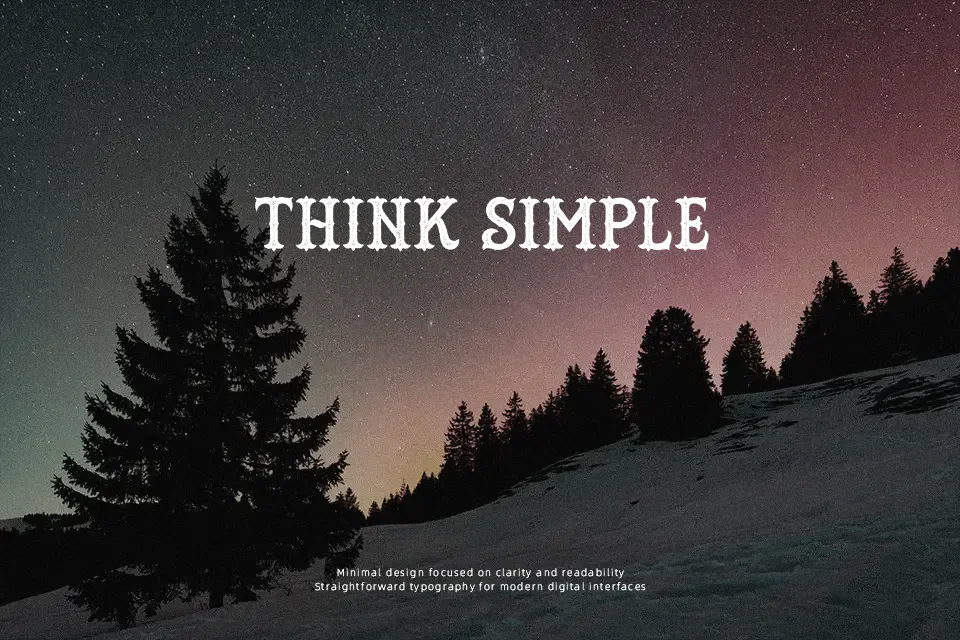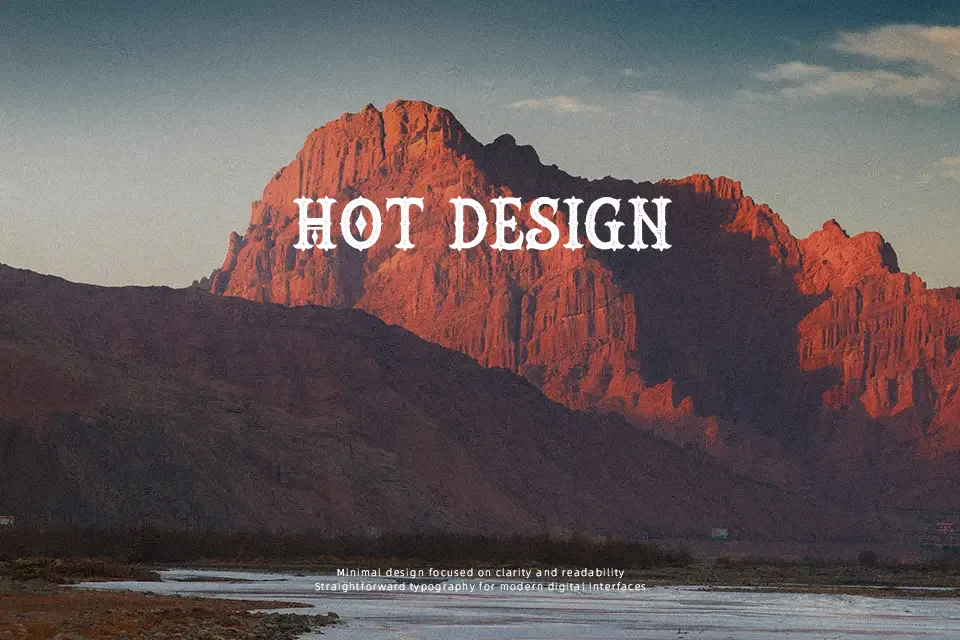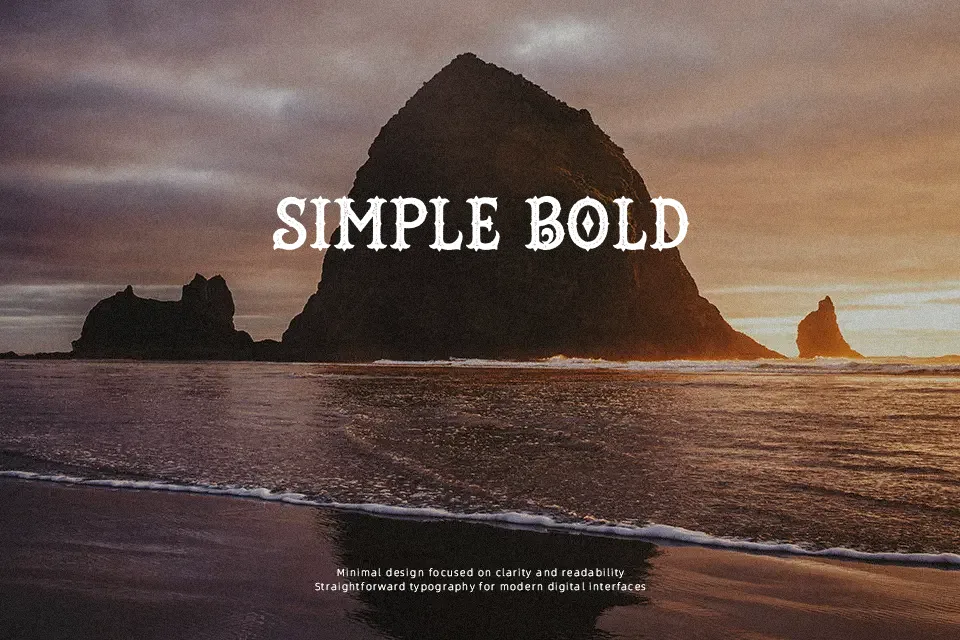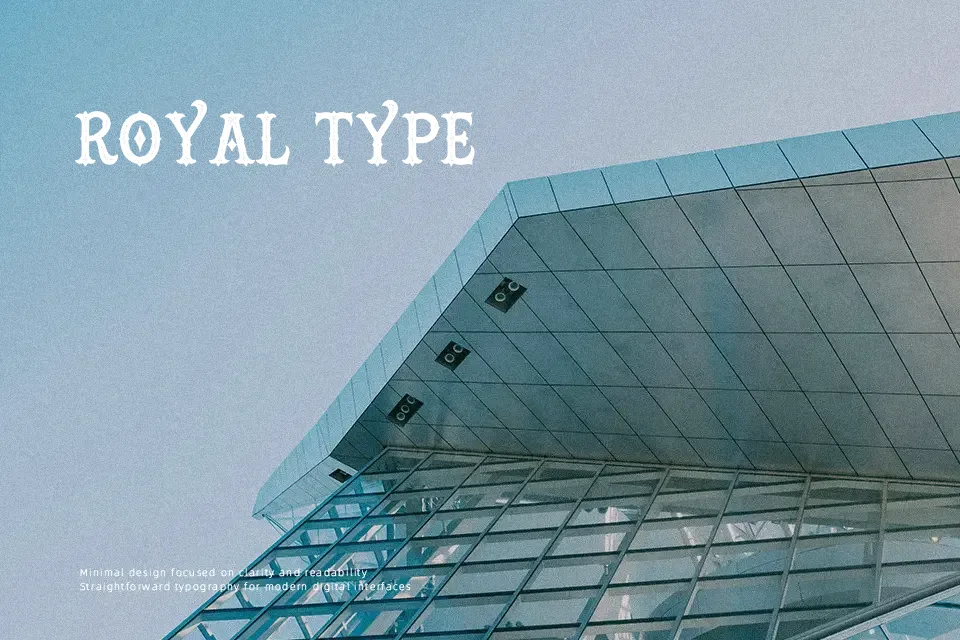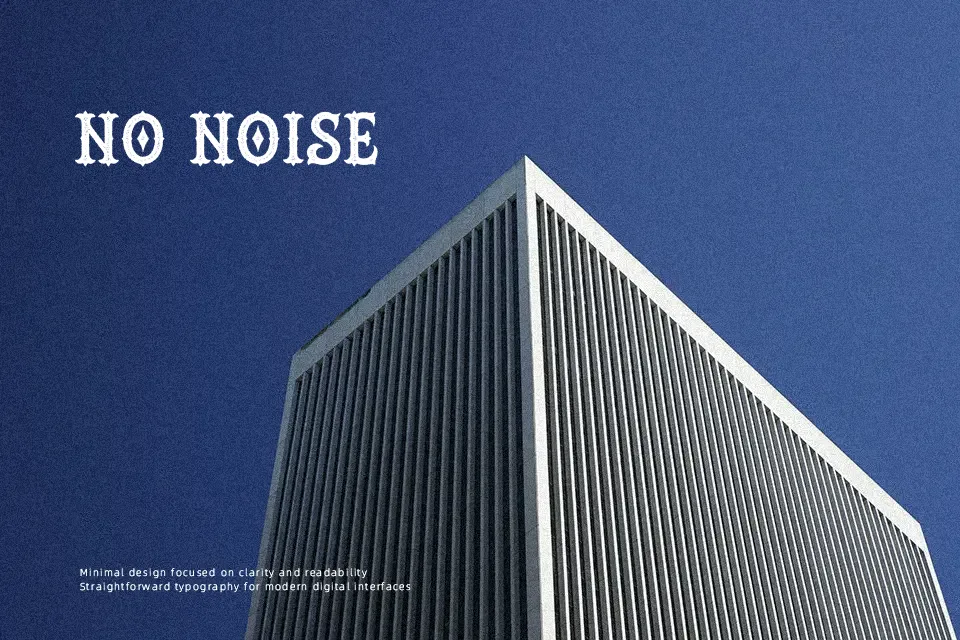
Tattoo Shop Font
Designed by Decade Type Foundry
Distinctive center spurs and heavy serifs define Tattoo Shop Font, establishing an ornamental display aesthetic anchored in late nineteenth-century signage traditions. The typeface pairs pronounced vertical strokes with curved, diamond-shaped mid-stem spikes and generous uppercase letterforms. While the spacing keeps isolated words legible across posters and merchandise, the demo glyph set contains only basic Latin letters without numerals or punctuation. Consequently, the design excels in prominent header positions but falters whenever projects require running copy or detailed layout work. Extended text blocks quickly overwhelm readers due to the high stroke density and intricate ornamental flourishes.
Best For: vintage apparel graphics, tattoo parlor signage, craft spirit labels, music festival posters
Not Ideal For: continuous reading passages, mobile user interfaces, multi-line editorial copy, dense packaging text
Perfect for headline, logo, and packaging, with a bold and decorative style.